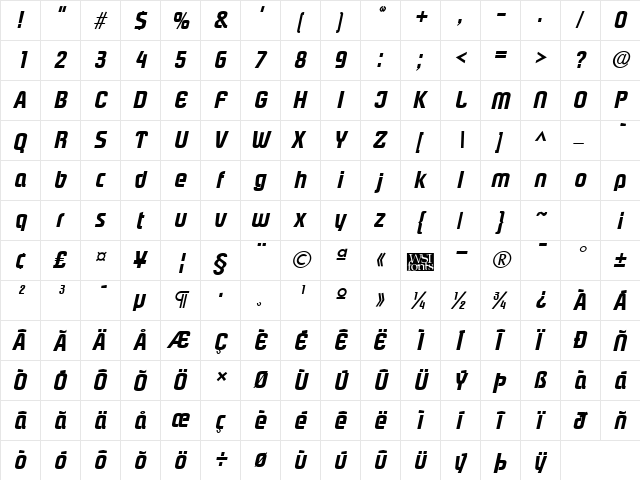
PloverExtrabold Italic Font Preview
PloverExtrabold Italic
PloverExtrabold Italic Font Details
Design Context for PloverExtrabold Typeface
PloverExtrabold takes a measured approach to typography — its balanced proportions and neutral character make it a reliable workhorse for both digital and print work. The dynamic lean of this cut emphasises speed and emphasis in any layout. Its bold stroke weight gives it real presence on the page.
Pro Tip: Use PloverExtrabold for emphasis, pull quotes, and subheadings where its slanted energy can add rhythm to the layout.